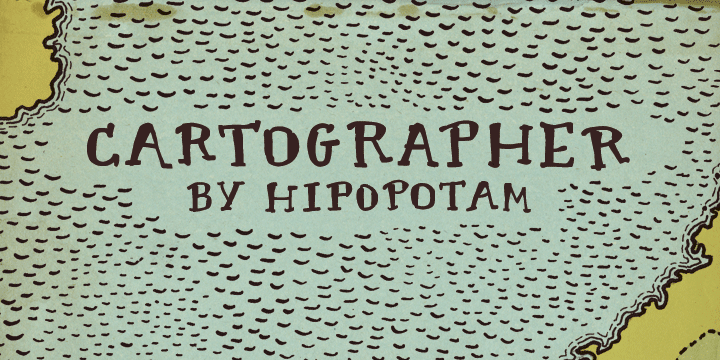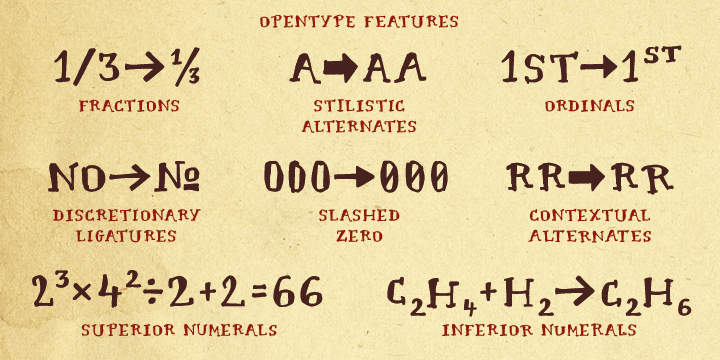
CARTOGRAPHER
Cartographer is a hand display and kids font published by Hipopotam Studio.
Cartographer by Hipopotam Studio is a hand drawn serif typeface.
Drawn with a 0.1 mm tip pen in a very small scale.
It has only uppercase characters but each has alternate glyphs.
It also has a lot of very useful features including multi-language support, discretionary ligatures, stylistic alternates, fractions, ordinals, contextual alternates and more.
Displaying the beauty and characteristics of the Cartographer font family.
Cartographer by Hipopotam Studio is a hand drawn serif typeface. Drawn with a 0.1 mm tip pen in a very small scale. It has only uppercase characters but each has alternate glyphs. It also has a lot of very useful features including multi-language support, discretionary ligatures, stylistic alternates, fractions, ordinals, contextual alternates and more.